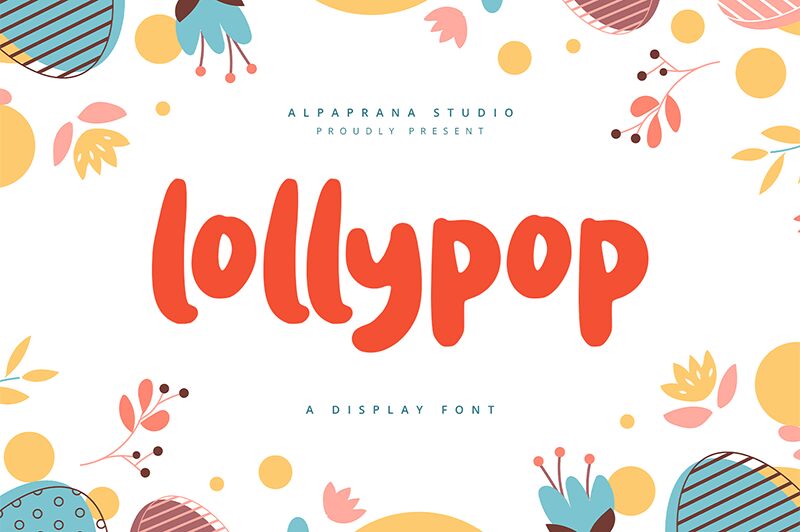
Lollypop
Lollypop, a captivating display font crafted by Alpaprana Studio, exudes a whimsical and playful charm. Its bold, rounded strokes and organic, hand-drawn aesthetic evoke a sense of youthful energy and childlike wonder. The font's distinct personality, with its quirky curves and delightful asymmetry, immediately captures the attention and invites a sense of joy and nostalgia.
The Lollypop font's versatility shines through its ability to seamlessly integrate into a wide range of design projects, from children's storybooks and packaging to modern branding and advertising campaigns. Its bold and distinctive character makes it an excellent choice for headlines, titles, and display text, adding a touch of personality and memorable flair to any design.